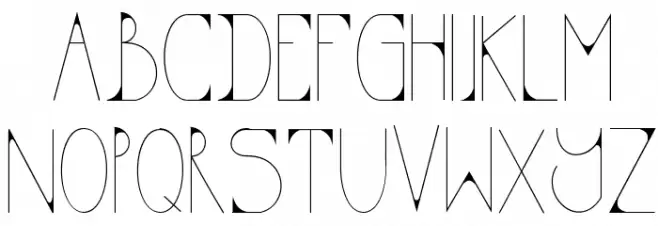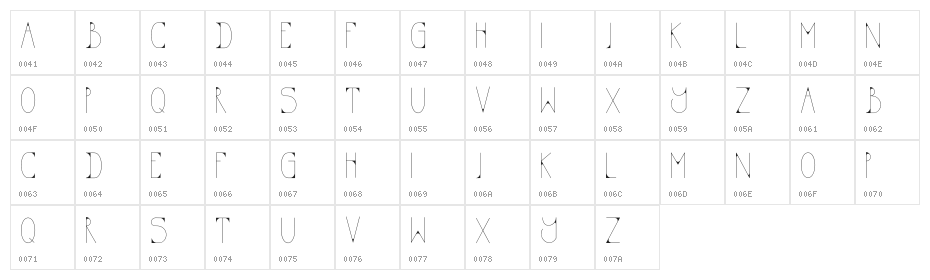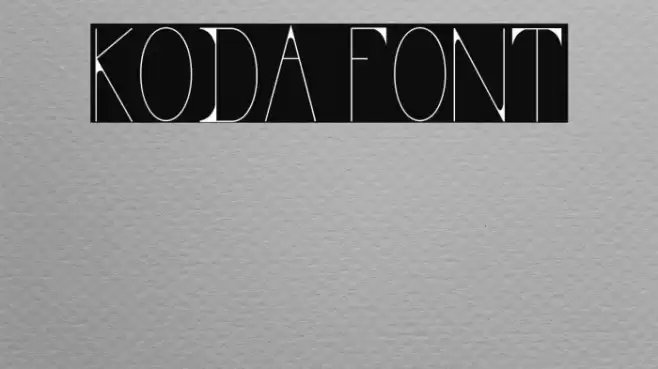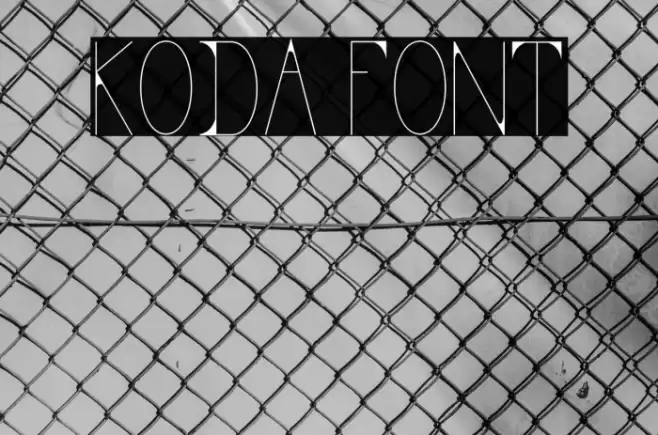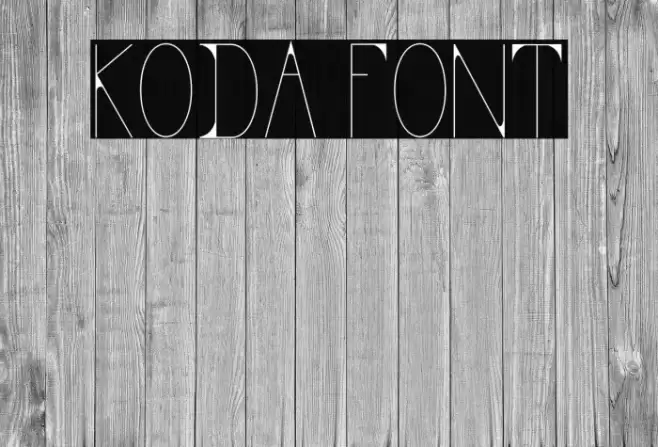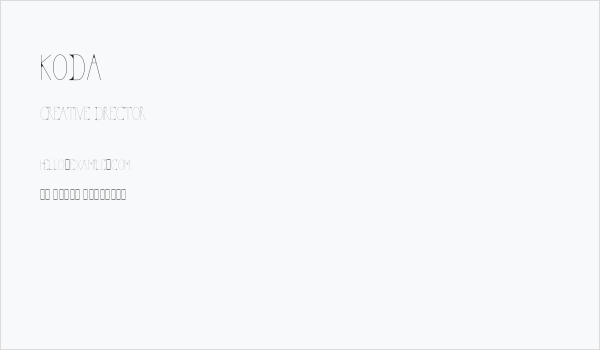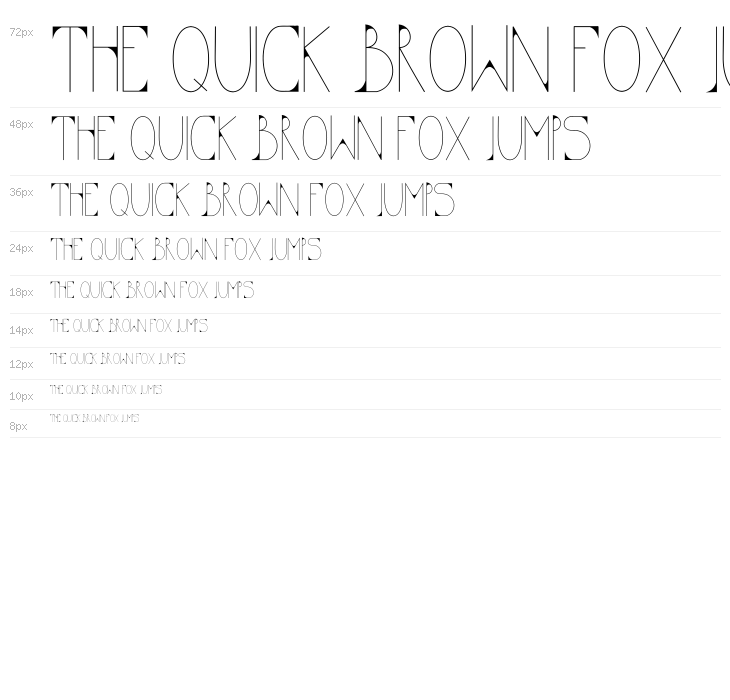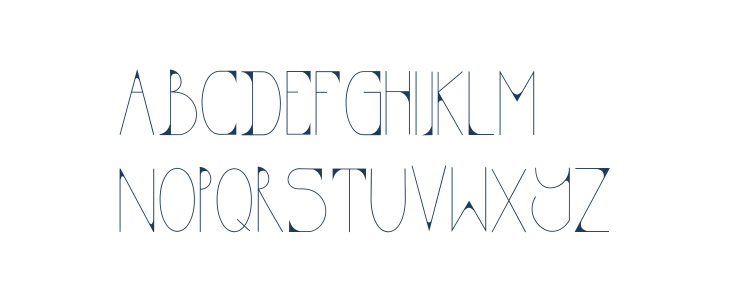
KODA Font
KODA Description
This font features a unique and modern design with a high level of contrast between thick and thin strokes. The characters are elegantly elongated, with sharp, angular serifs that give it a distinctive and sophisticated appearance. The uppercase letters are particularly striking, with a geometric influence that adds a contemporary flair. The lowercase letters maintain the same stylistic elements, ensuring consistency throughout the typeface. The numerals and special characters are crafted with the same attention to detail, making this font versatile for various design needs.
| Proposed Projects | Ideal for branding, luxury product packaging, editorial design, and high-end fashion magazines. |